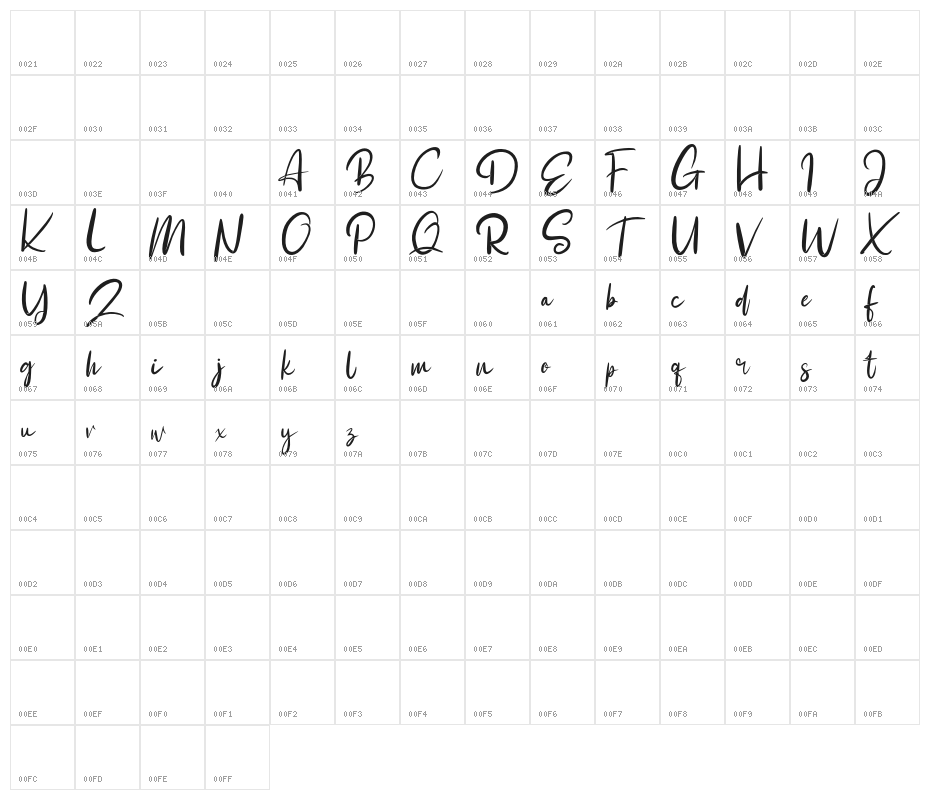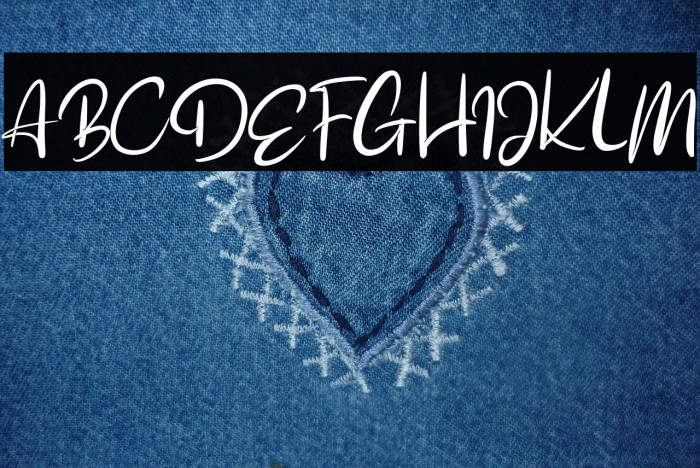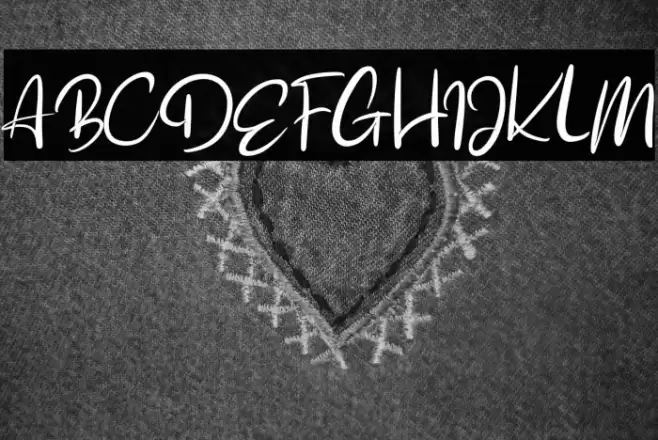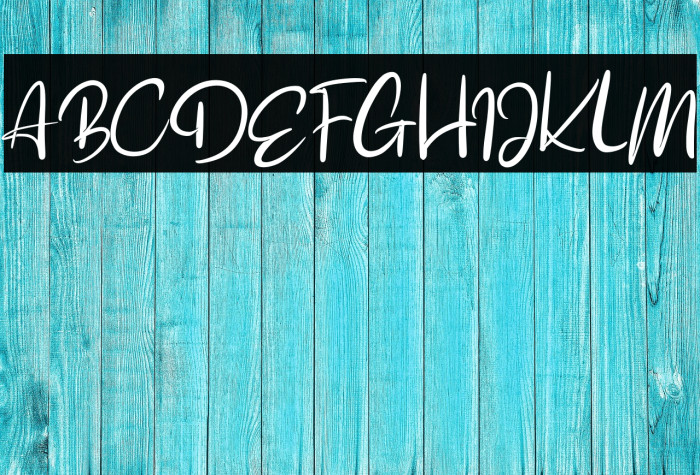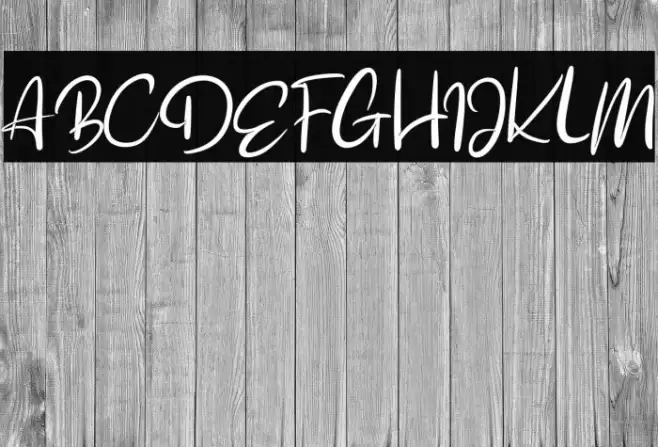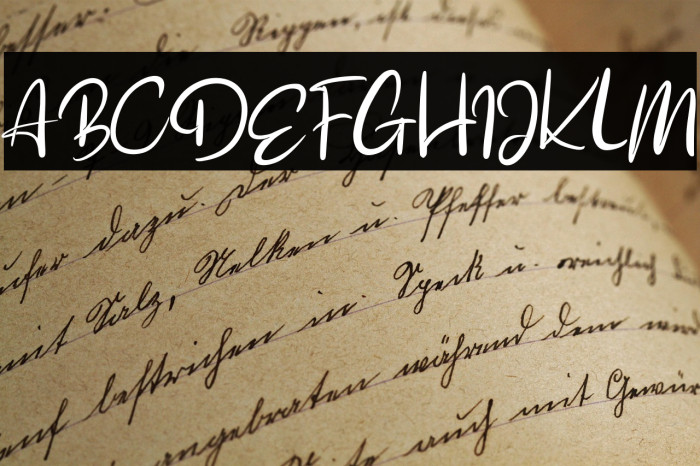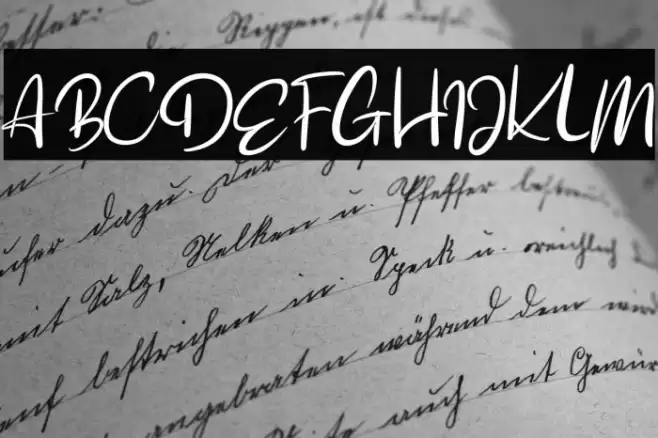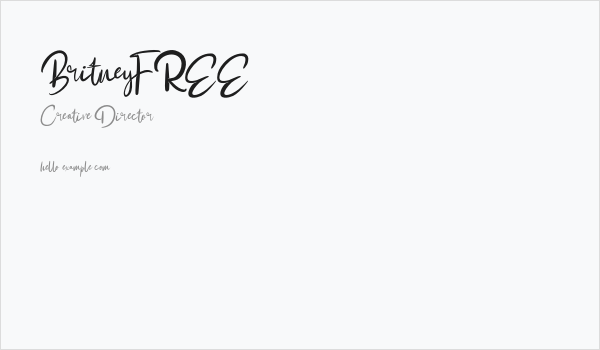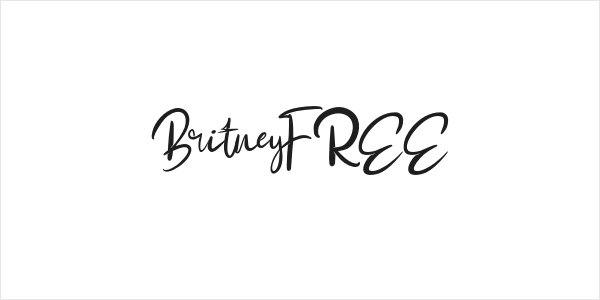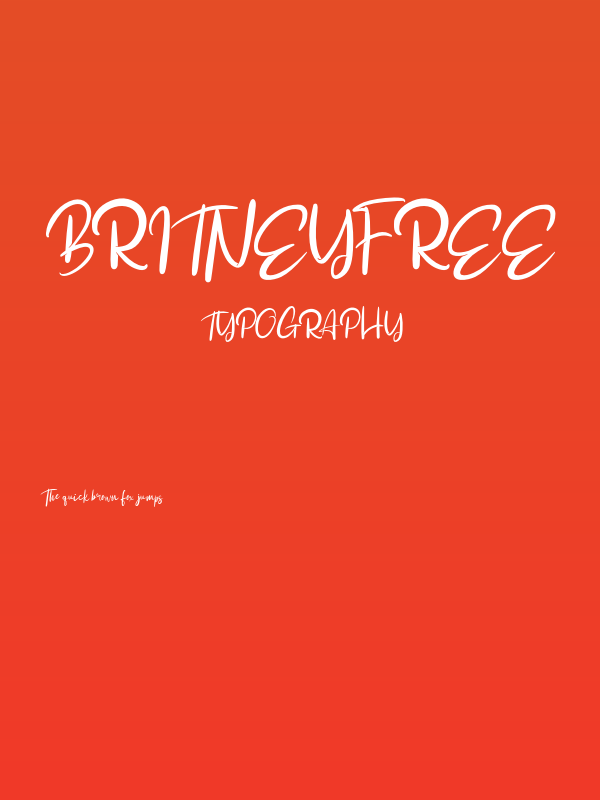
BritneyFREE Font
BritneyFREE Description
This font features a lively and expressive script style, characterized by its fluid and dynamic strokes. The uppercase letters are bold and slightly slanted, giving a sense of movement and elegance. The lowercase letters maintain a consistent flow, with some characters featuring unique loops and swashes that add a playful touch. The overall design is modern and artistic, making it suitable for creative projects. The font maintains a medium contrast in stroke thickness, which enhances readability while preserving its decorative appeal.
Use CaseLogos, Headlines, Decorative text
Proposed ProjectsIdeal for wedding invitations, greeting cards, branding, and social media graphics.